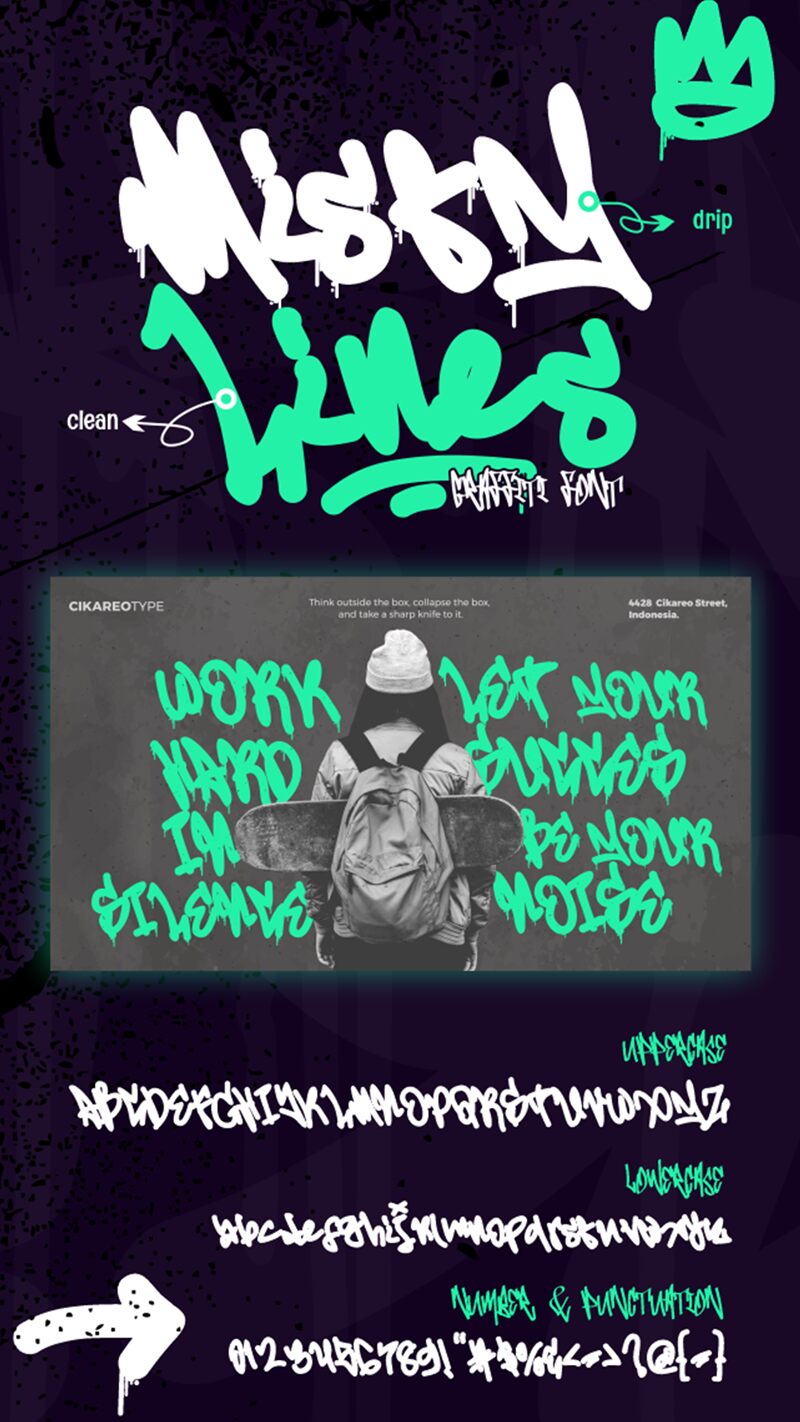
Misty Lines font family by Cikareotype Studio has 4 font styles included, featuring a graffiti-inspired style. The font family has urban and dynamic typography influenced by street culture, art, and the environment. Its expressive lettering is carefree, rebellious, impactful, and one-of-a-kind. Characters combine smooth curves with edgier cuts for a contemporary look while remaining harmonious to one another.
Use Misty Lines on apparel designs, tote bags, creative advertising posters, direct-to-garment-printed shirts, drink coasters, stickers, stamps, mugs, logos, art portfolios, or book covers. With a strong street art aesthetic, this typography offers a modern edge that grabs attention.